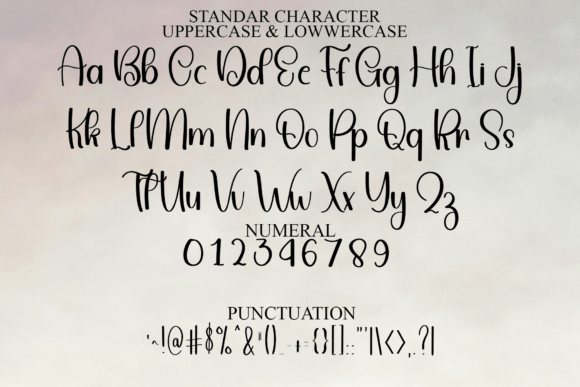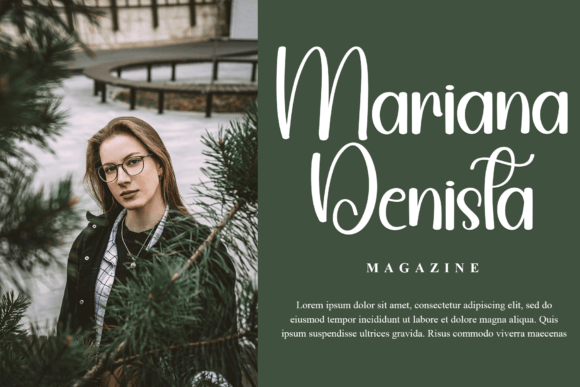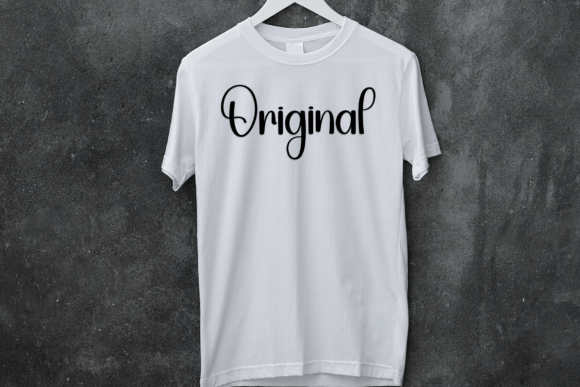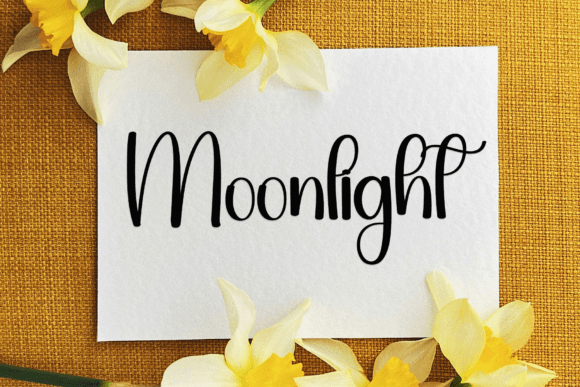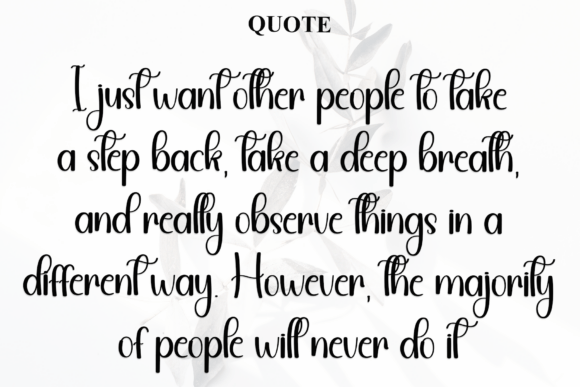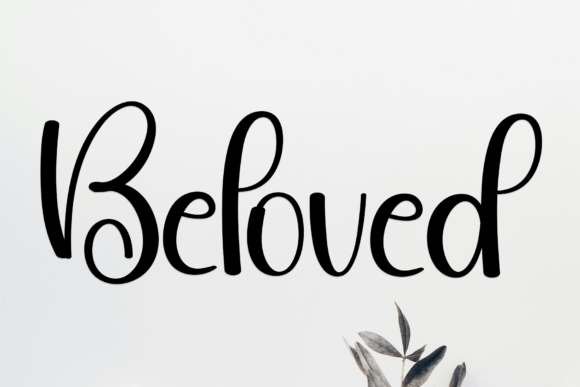
Baverly Font: The Perfect Casual Script for Your Creative Projects
In the world of typography, fonts play a crucial role in conveying the tone and personality of a design. If you’re looking for a font that exudes warmth, friendliness, and approachability, look no further than Baverly Font. This casual script font is perfect for personal projects, invitations, social media graphics, and any design that requires a touch of whimsy and playfulness.
The Characteristics of Baverly Font
Baverly Font is a hand-drawn script font that boasts rounded, playful strokes that give it a relaxed and casual feel. Its charming aesthetic is reminiscent of handwritten notes and doodles, making it perfect for designs that require a personal touch. The font’s smooth curves and fluid lines create a sense of movement and energy, adding a delightful touch to any design.
Uses of Baverly Font
Baverly Font is an incredibly versatile font that can be used in a variety of creative projects. Here are some ideas to get you started:
- Personal Projects: Baverly Font is perfect for personal projects such as scrapbooking, journaling, and crafting. Its casual and playful vibe makes it ideal for creating handmade cards, gift tags, and other paper crafts.
- Invitations: Whether you’re planning a birthday party, wedding, or baby shower, Baverly Font is a great choice for your invitations. Its friendly and approachable feel sets the tone for a fun and celebratory event.
- Social Media Graphics: Baverly Font is also great for social media graphics, such as Instagram posts, Facebook updates, and Pinterest pins. Its playful and whimsical touch adds a personal touch to your online presence.
- Branding and Packaging: If you’re looking for a font that can help you establish a friendly and approachable brand identity, Baverly Font is a great choice. Its unique and charming aesthetic can help your brand stand out from the crowd.
Why Choose Baverly Font?
So why choose Baverly Font over other script fonts? Here are a few reasons:
- Unique Aesthetic: Baverly Font has a unique and charming aesthetic that sets it apart from other script fonts. Its hand-drawn feel and playful strokes make it a standout choice for designers and crafters.
- Easy to Read: Despite its playful and casual vibe, Baverly Font is easy to read and understand. Its smooth curves and fluid lines make it perfect for body text and headlines.
- Versatile: Baverly Font is an incredibly versatile font that can be used in a variety of creative projects. Its friendly and approachable feel makes it perfect for personal and commercial projects alike.
Tips for Using Baverly Font
Here are a few tips for using Baverly Font in your designs:
- Pair it with Other Fonts: Baverly Font pairs well with other fonts, such as sans-serif fonts and serif fonts. Experiment with different font combinations to find the perfect look for your design.
- Use it for Headlines and Body Text: Baverly Font is perfect for both headlines and body text. Use it to create eye-catching headlines and engaging body text.
- Experiment with Colors: Baverly Font looks great in a variety of colors. Experiment with different colors and textures to find the perfect look for your design.
In conclusion, Baverly Font is a casual script font that exudes warmth, friendliness, and approachability. Its rounded, playful strokes give it a relaxed and casual feel, making it perfect for personal projects, invitations, social media graphics, and any design that requires a touch of whimsy and playfulness. With its unique aesthetic, ease of readability, and versatility, Baverly Font is a great choice for designers and crafters looking to add a personal touch to their designs.